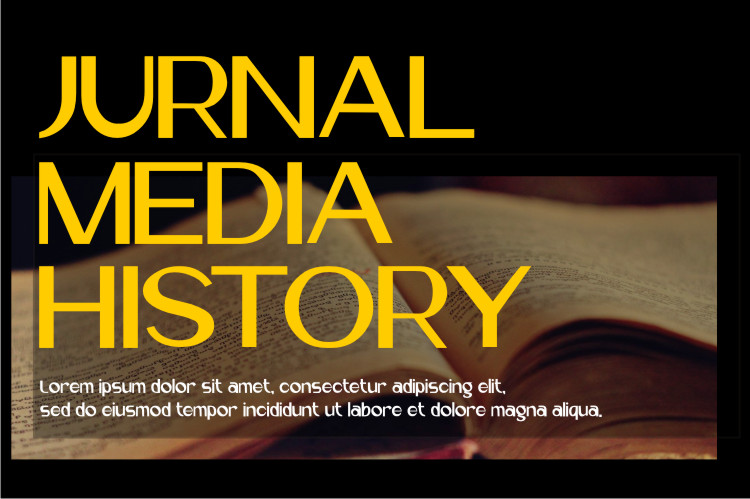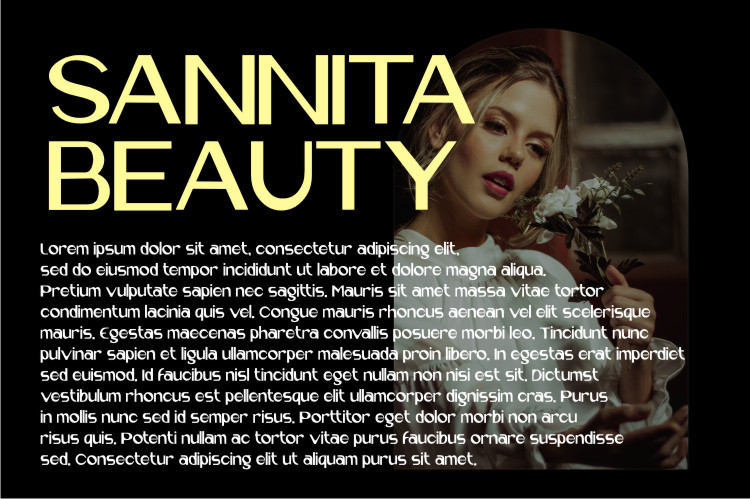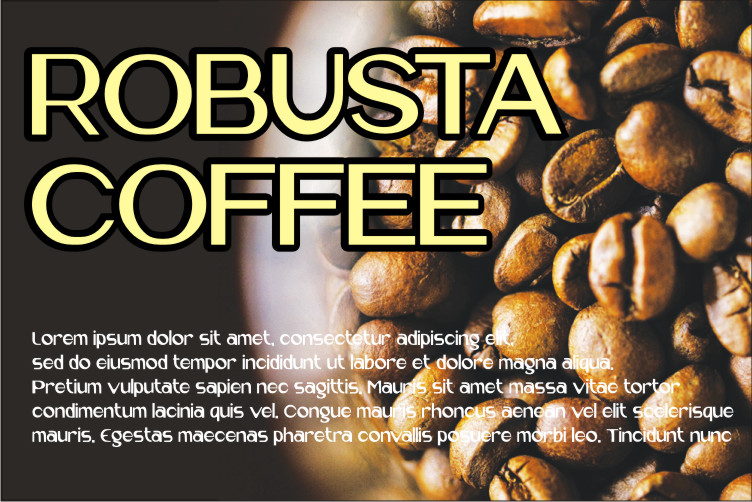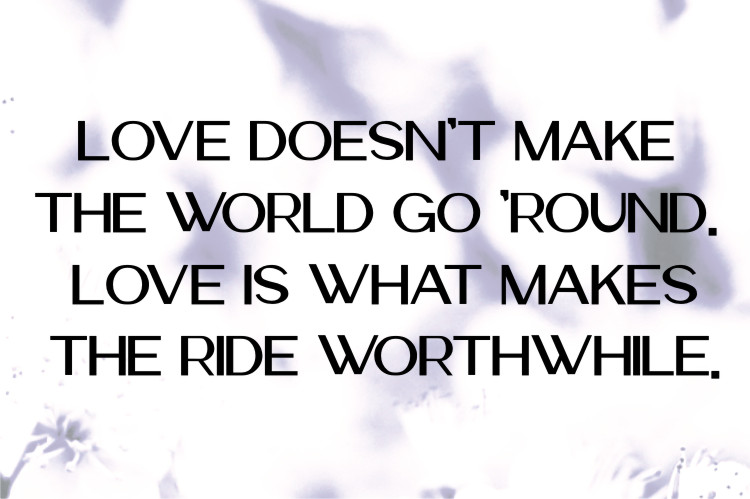
Ganama Font
Ganama Sans Serif Font
This is a cool, tall and simple sans serif font. This font is suitable for designs such as t-shirts, sportswear, logos, advertisements, clothing, and more.